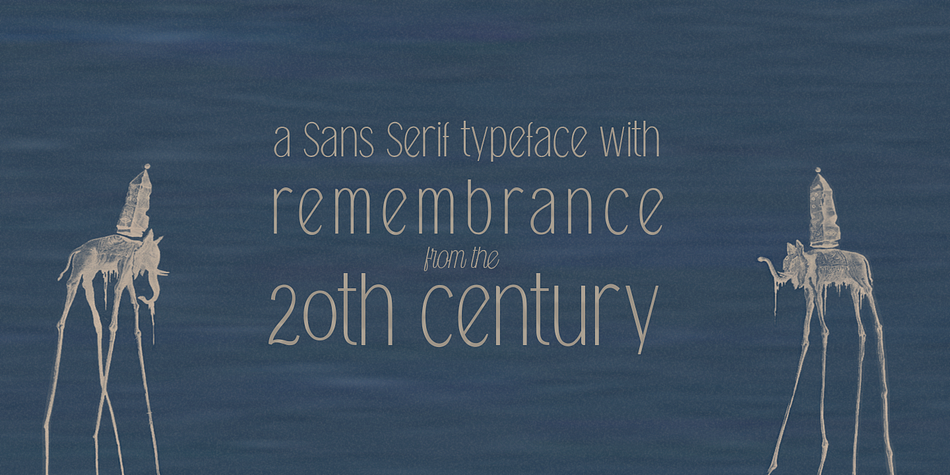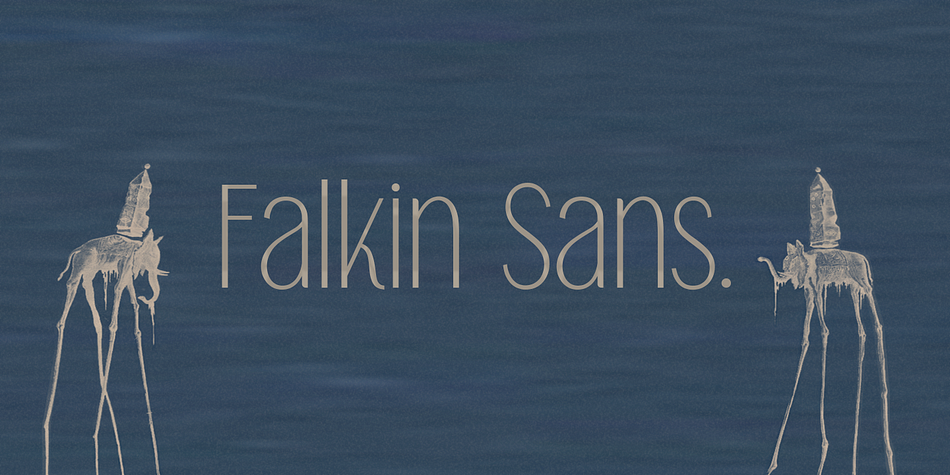
Designed by Måns Grebäck, Falkin Sans is a display sans font family. This typeface has two styles and was published by Aring Typeface AB.
This is a 1900’s sans typeface designed by Måns Grebäck. It comes in a regular, upright version as well as an italic version.